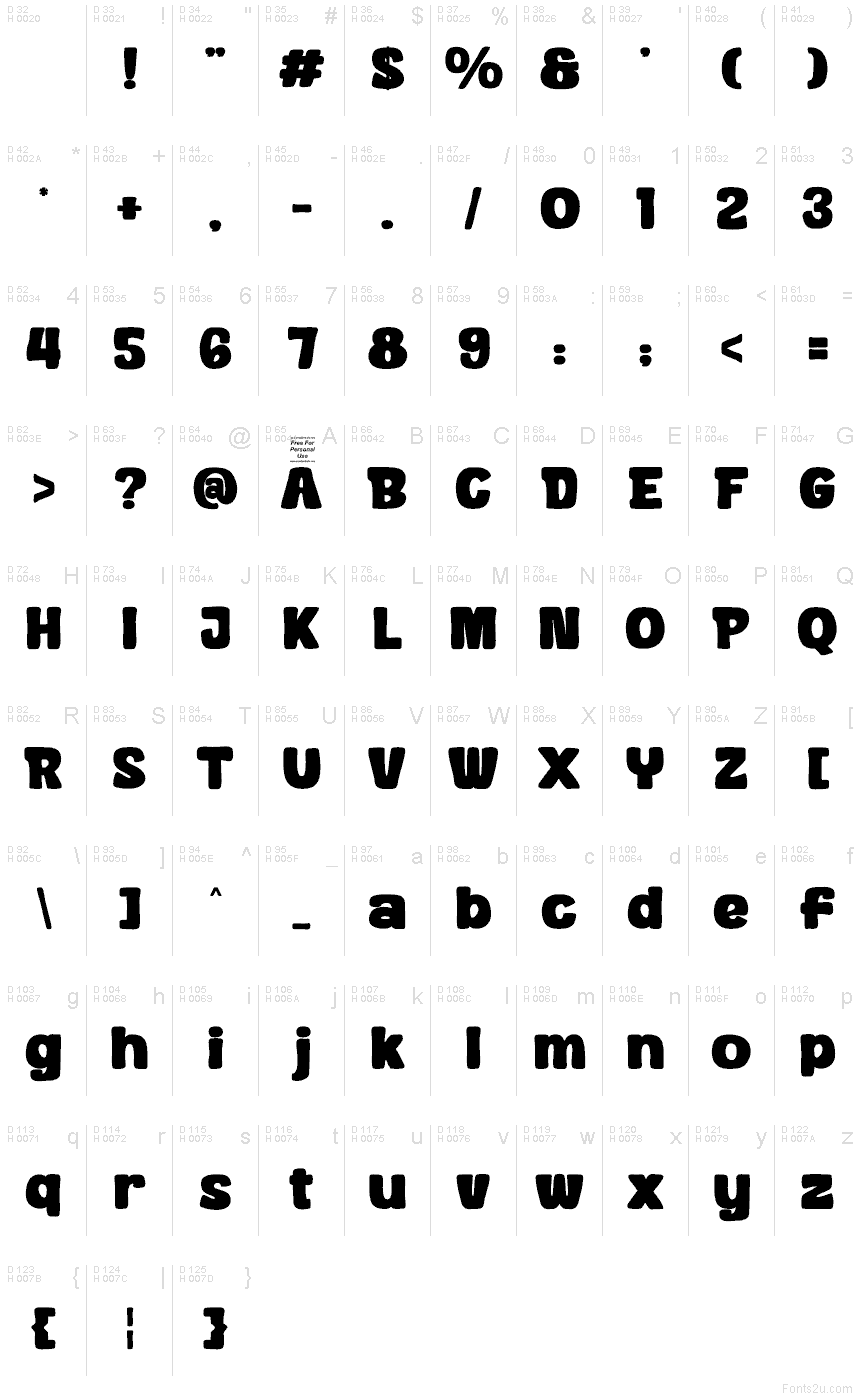
Eating Boder
Eating Boder font by Ermedia Studio is a free playful display font. Thick, softly rounded forms feel puffed-up and chewy, like letters shaped out of marshmallow or dough. The weight lands with friendly impact, while the slightly irregular edges add a handmade warmth that reads loud and happy without turning messy.
Using Eating Boder, headlines jump off food truck boards, snack packaging, farmers’ market posters, kids’ birthday invites, cafe menus, bakery logos, and YouTube thumbnails. This free font’s chunky rhythm holds together at large sizes and still stays legible when scaled down. Pair it with a clean geometric sans for body copy—let the big bubbly titles do the talking and keep supporting text crisp.